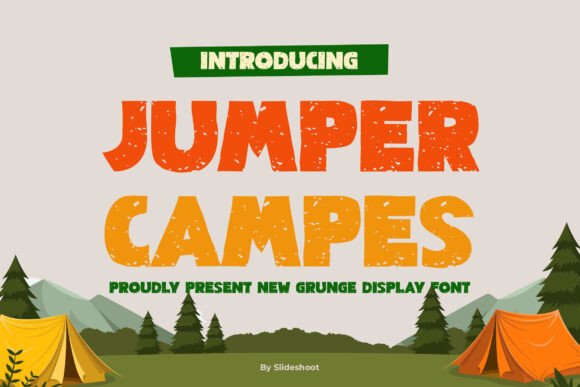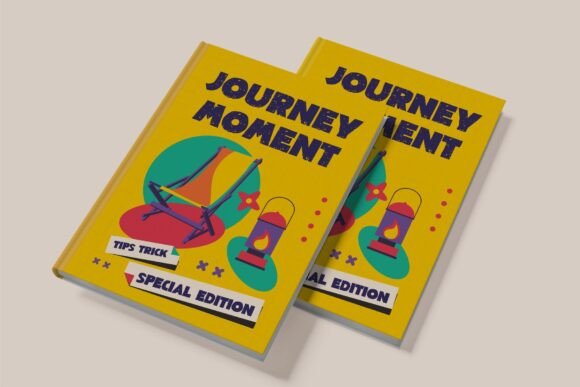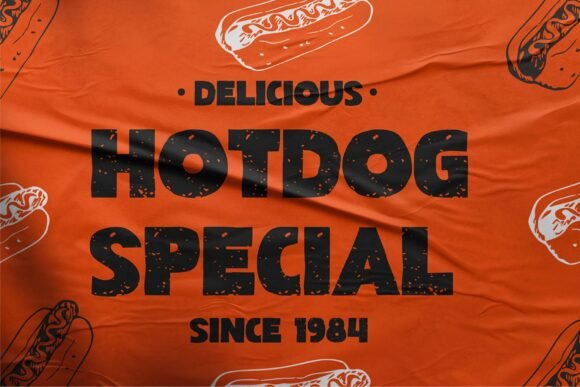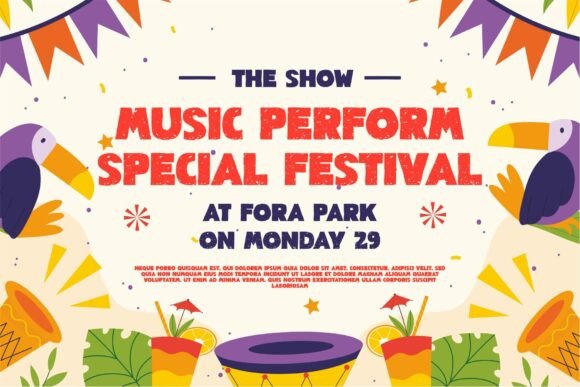
Jumper Campes Font: Playful Grunge Display Font for Rustic Branding
About the Jumper Campes Font
Add a touch of class to your work with the Jumper Campes Font, a truly exceptional typeface. Jumper Campes is a playful grunge display font inspired by nature and camping adventures. Its distressed textures and bold shapes make it perfect for outdoor-themed designs, rustic branding, or fun, creative projects. Bring the wilderness to life with this adventurous typeface!
Jumper Campes works exceptionally well in headlines, posters, and short-form branding applications where its bold, playful nature can shine. Its distressed texture adds visual interest to logos, packaging for outdoor products, or event invitations. However, avoid using it for body text or lengthy paragraphs; its highly stylized forms would hinder readability.
Consider pairing Jumper Campes with a clean sans-serif like Open Sans for a balanced contrast, or a more refined serif such as Lora for a touch of elegance. A simple geometric sans-serif could also work well to create a modern, adventurous feel.
The font’s core personality is energetic and rugged, conveying a sense of adventure and rustic charm. It’s ideal for brands focused on the outdoors, camping, or other activities with a similar aesthetic.
Jumper Campes Font Usage Examples
Jumper Campes Font Example